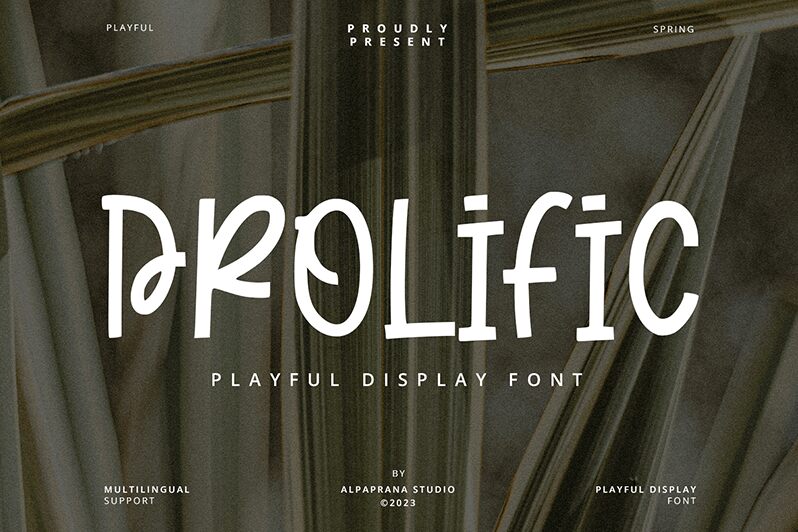
Prolific
Prolific font by Alpaprana Studio is a whimsical cartoon display typeface with a casual charm. It has a retro-inspired look with expressive and artistic elements that show its fun side. The letters are condensed in width, and they give off a friendly vibe to audiences of all ages.